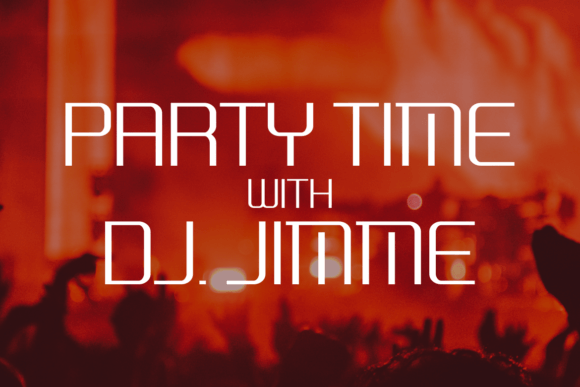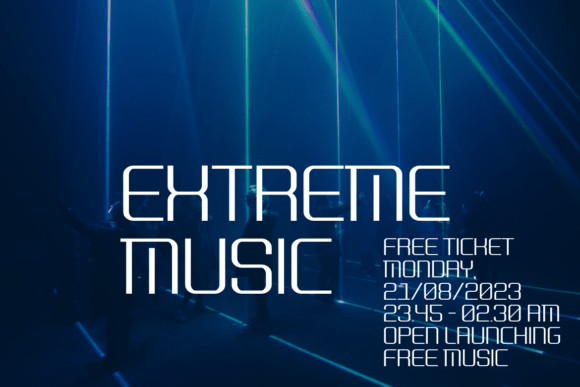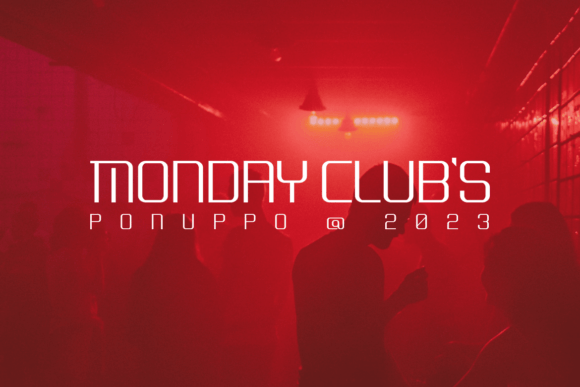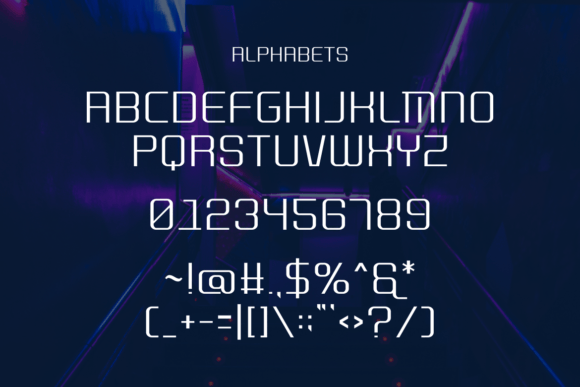
Introduction to Macroxa Font
Do you remember that moment when you finally find the perfect font for your creative project? It’s like the missing piece of a puzzle, and everything falls into place. For designers, it’s a game-changer. And if you’re looking for a font that captures the energy and excitement of the night, look no further than Macroxa Font. This sleek and modern typeface is part of the techno-family, making it a perfect fit for music, disc jockeys, and lively parties.
With its versatility, Macroxa Font is not just limited to music and parties. It can also be used to describe techno products like laptops, smartphones, robotics, and the internet. Whether you’re working on a free download or a high-quality design resource, Macroxa Font is sure to elevate your project with its unique style and transparent background.
So why is Macroxa Font so valuable for designers? It’s because it captures the essence of music and technology in perfect harmony, making it a one-of-a-kind design resource that’s sure to set your project apart.
Key Features of Macroxa Font
- High-quality design for creative projects, suitable for various applications including logos, typography, and branding materials.
- Macroxa Font features a transparent background, allowing for seamless integration into any design without visual distractions.
- Includes a wide range of characters, including uppercase and lowercase letters, numbers, and special characters, making it a versatile design resource.
- Macroxa Font is available in a single weight, ensuring a consistent and polished look across all design projects.
- Designed to be scalable, Macroxa Font maintains its high quality at various resolutions, from small to large sizes.
- Suitable for both digital and print-based design projects, Macroxa Font is an ideal design resource for designers and artists working on creative projects.
Honest Review: Macroxa Font
I recently had the opportunity to work with the Macroxa Font, and I must say it’s been a game-changer for my creative projects. This high-quality font is perfect for designers looking to add a unique touch to their designs.
- High-quality font with smooth lines and precise details.
- Transparent background option allows for easy customization and versatility.
- Perfect for creative projects that require a modern and sophisticated look.
- May not be suitable for projects that require a more classic or traditional look.
Overall, I’m thoroughly impressed with the Macroxa Font. It’s a fantastic design resource that’s perfect for designers looking to add some sophistication to their creative projects. The free download option and transparent background feature make it an excellent choice for designers on a budget.
Tips for Getting the Most Out of Macroxa Font
Use the transparent background feature to create a seamless design element. Experiment with different font sizes and styles to add visual interest to your project.
Use Macroxa Font in logos, branding materials, and marketing collateral. It’s also great for creating eye-catching headlines and titles in your designs.